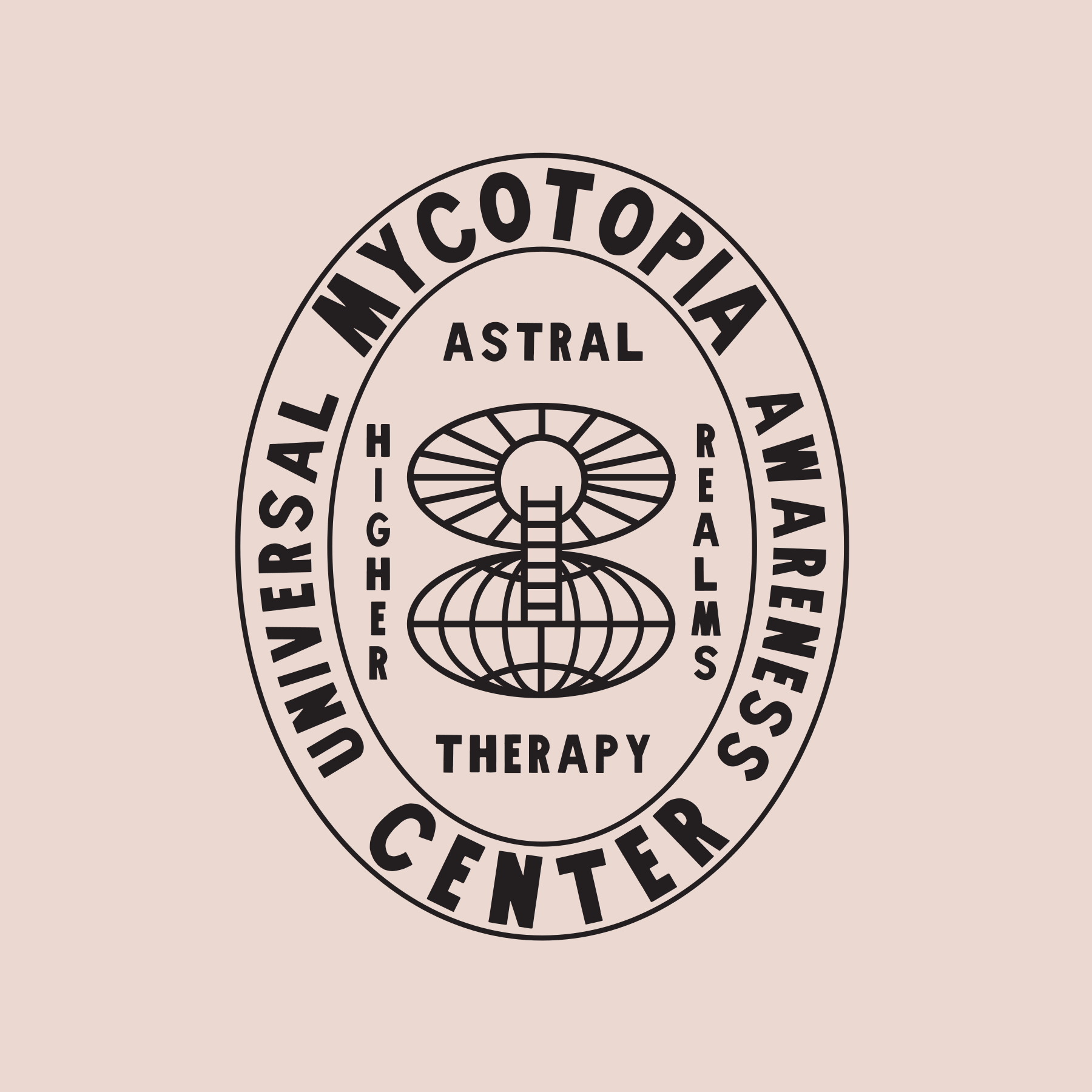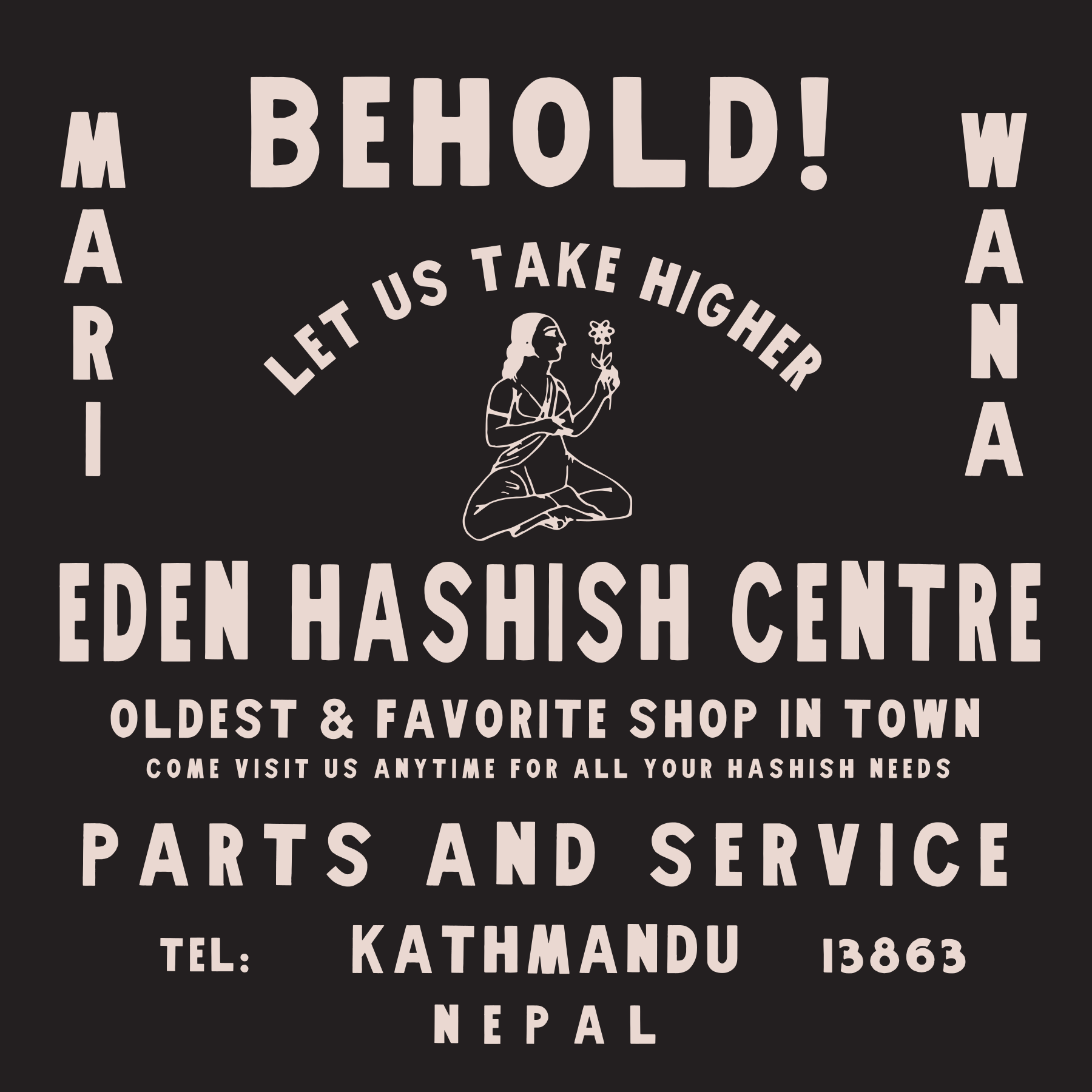
Modern Ephemera
A beloved tool in the house of Wabi Sabi. An original spirit that started it all. We dove deep into the dusty crates of the past to uncover this handpainted spirit that serves as a constant reminder that we are all human and deserve to celebrate our differences.